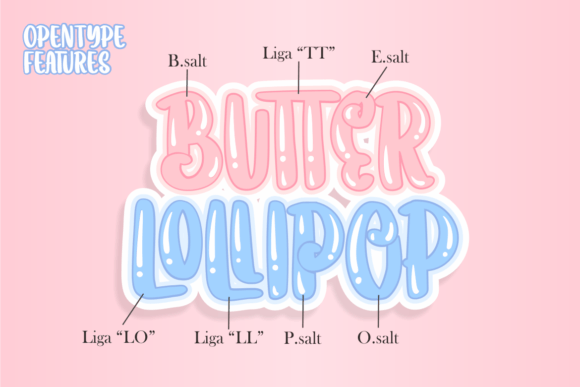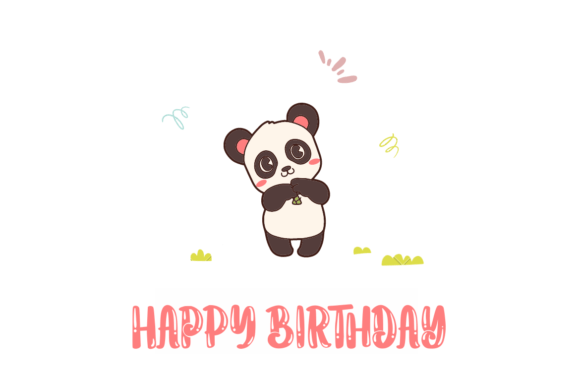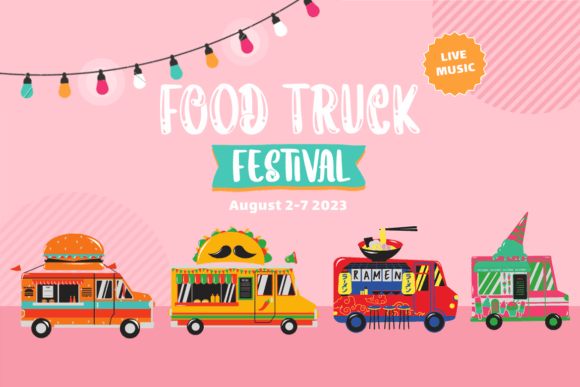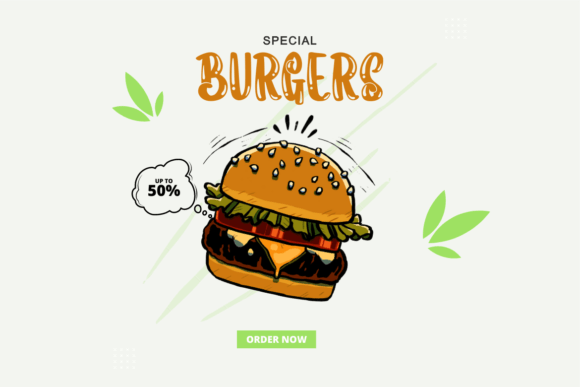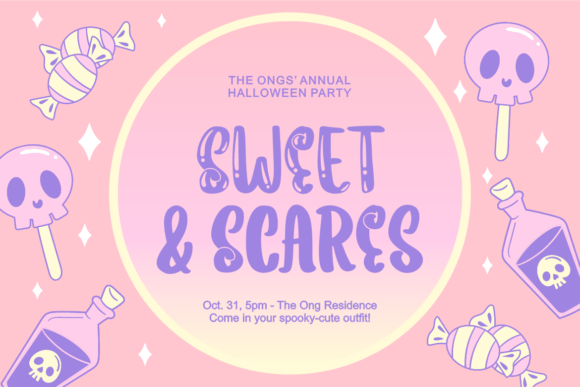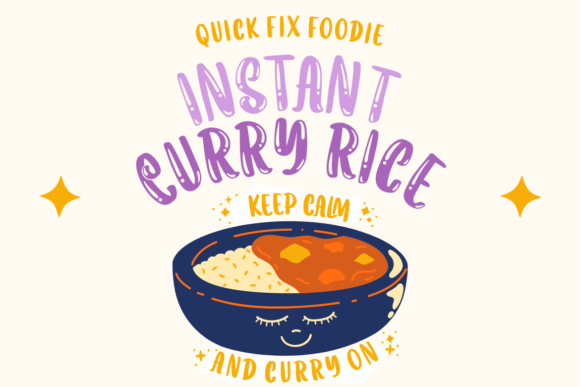
The Sweet Spot: Discovering the Charm of Butter Lollipop Font
I’ll never forget the time I was working on a project for a client’s birthday card. I had all the design elements in place, but something was missing – the perfect font. I scoured the internet, tried out dozens of fonts, but none seemed quite right. That was until I stumbled upon Butter Lollipop Font. It was like the design gods had smiled upon me! 🎉
This playful and charming display font instantly added a happy touch to my design, and I knew I had found the one. In this article, I’ll share with you why I’m obsessed with Butter Lollipop Font, its features, and how to make the most of it in your designs.
- ✨ Playful and charming design: Butter Lollipop Font is perfect for adding a touch of whimsy to your designs.
- ✅ PUA encoded: Easy access to all the amazing glyphs and ligatures.
- 💫 Versatile: Suitable for a wide range of applications, from greeting cards to headlines.
⚠️ While Butter Lollipop Font is amazing, it’s not without its limitations. Some users might find that the font can be a bit over-the-top for certain designs. Additionally, the font might not be suitable for body text due to its display nature.
🤔 One thing to note is that the font’s playful nature might not be suitable for more formal designs. However, with a little creativity, you can make it work!
The Designer Inspiration Behind Butter Lollipop Font
The story behind Butter Lollipop Font is one of creativity and inspiration. The designer, inspired by the sweetness of childhood treats, created a font that’s as playful as it is charming. The result is a font that’s perfect for adding a happy touch to your designs.
A: PUA (Private Use Area) encoding allows you to access all the glyphs and ligatures in the font, making it easy to use in your designs.
Q: Is Butter Lollipop Font suitable for body text?
A: While Butter Lollipop Font is a beautiful font, it’s primarily designed for display use. It might not be the best choice for body text due to its playful nature.